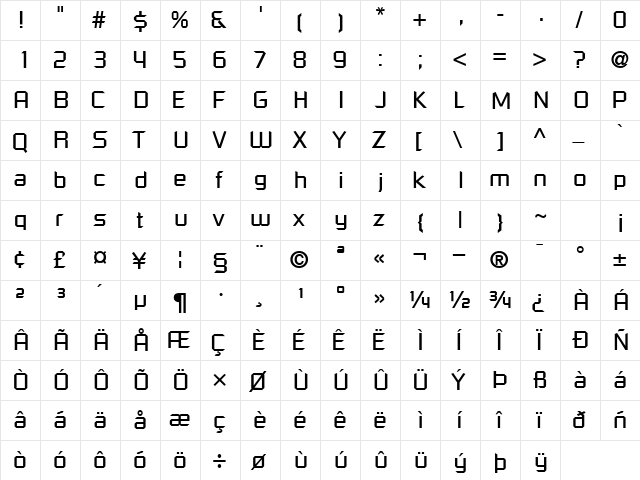
ShoestringSSK Regular
Design Context for ShoestringSSK Typeface
ShoestringSSK takes a measured approach to typography — its balanced proportions and neutral character make it a reliable workhorse for both digital and print work.
Pro Tip: Use ShoestringSSK in both headline and body roles to test its range before committing to a single application.